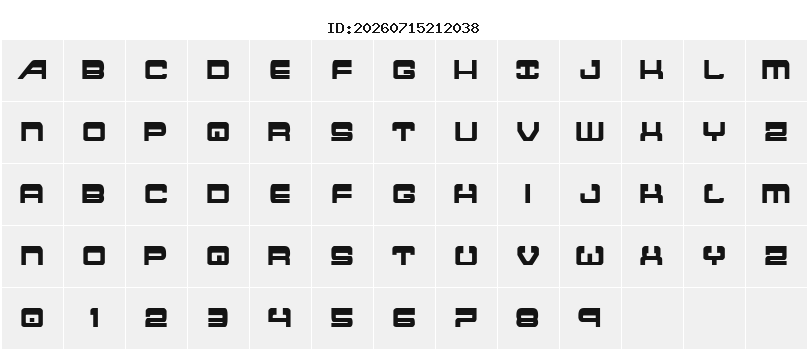
Atlantia Condensed Preview
• Font Name: Atlantia Condensed
• Font Style: Condensed
• Full Font Name: Atlantia Condensed
About Atlantia Condensed.ttf
Atlantia Condensed.ttf is a modern, elegant sans-serif font designed for ultimate readability and visual harmony. Perfect for branding, headlines, web design, and print materials.